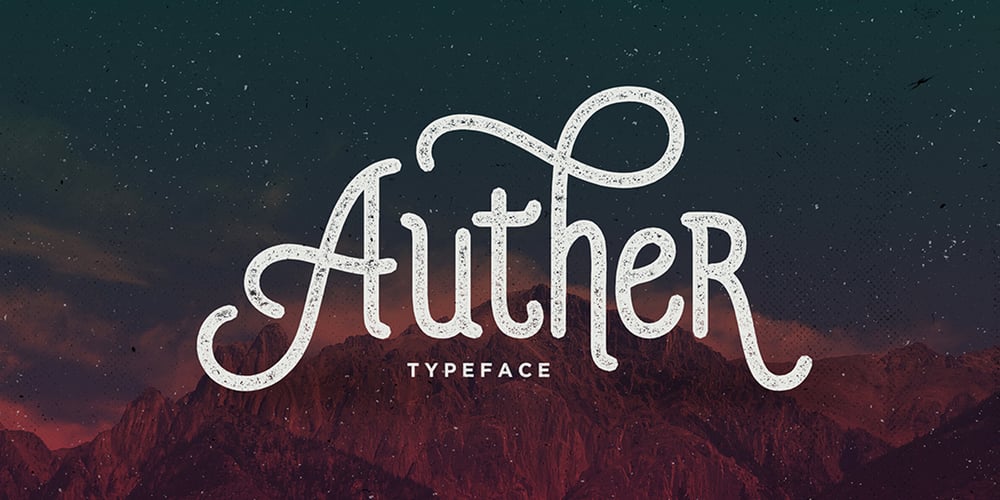
Auther
Auther font
Auther Font Family was designed by Seniors Studio and published by Seniors Studio. Auther contains 1 styles and family package options. Auther is a modern design with a vintage feel. A monoline display font that combines classic & modern styles. Includes OpenType features with Stylistic Alternates and ligatures. Auther is suited for various print and digital designs, including logos, stationery, posters and more.